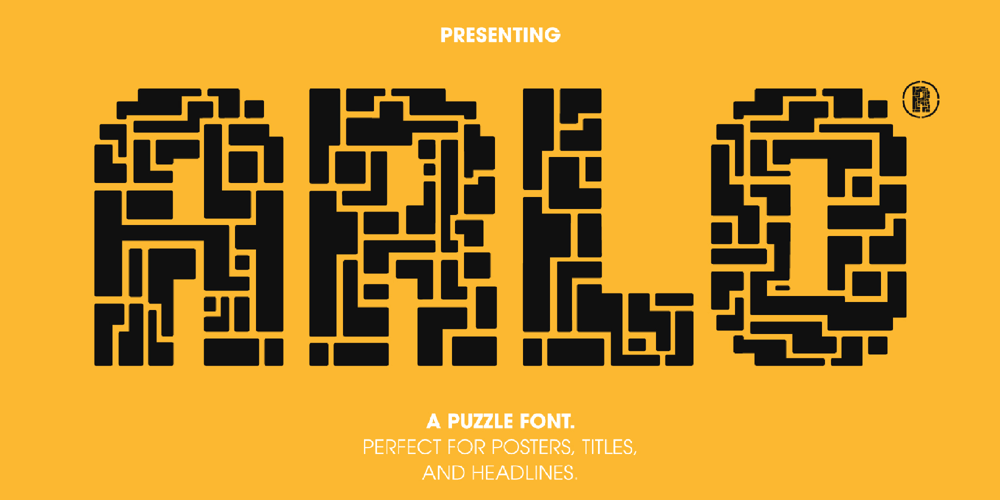
Arlo
Arlo font
Arlo Font Family was designed by Igor Ovsyannykov and published by Hipfonts. Arlo contains 1 styles and family package options. Arlo is a unique puzzle inspired typeface. Each letter is distinctive and can stand on it’s own, that’s what makes Arlo truly unique. The viewer is bound to get lost inside the puzzle while looking at your design. This is perfect for attention grabbing posters, logos, headlines, apparel, packaging, and virtually anything you can imagine. This is also multilingual font with upper and lowercase letters.